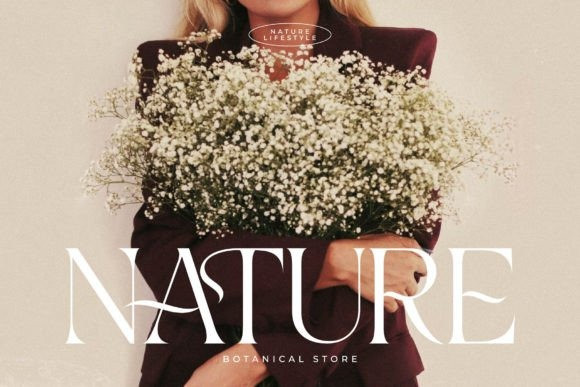
Hefigrah Font
Hefigrah Font is a serif modern and classic typeface that has its own unique style & modern look. This typeface is perfect for an elegant & luxury logo, book or movie title design, fashion brand, magazine, clothes, lettering, quotes, and so much more.